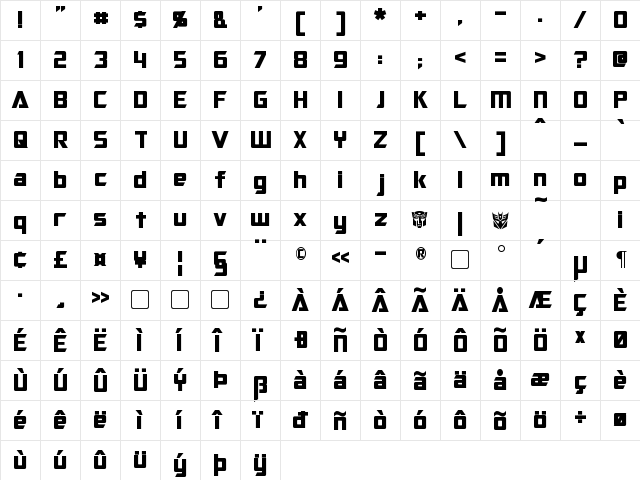
Optimus Regular
| Foundry | Neale Davidson |
| Designer | Neale Davidson |
Design Context for Optimus Typeface
Optimus takes a measured approach to typography — its balanced proportions and neutral character make it a reliable workhorse for both digital and print work.